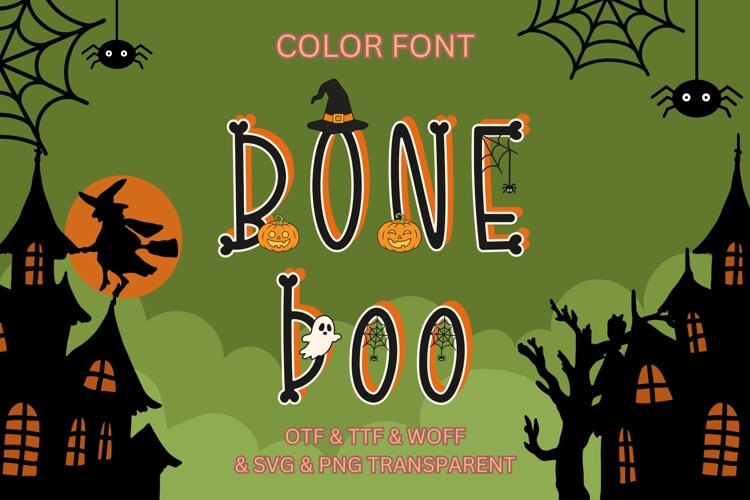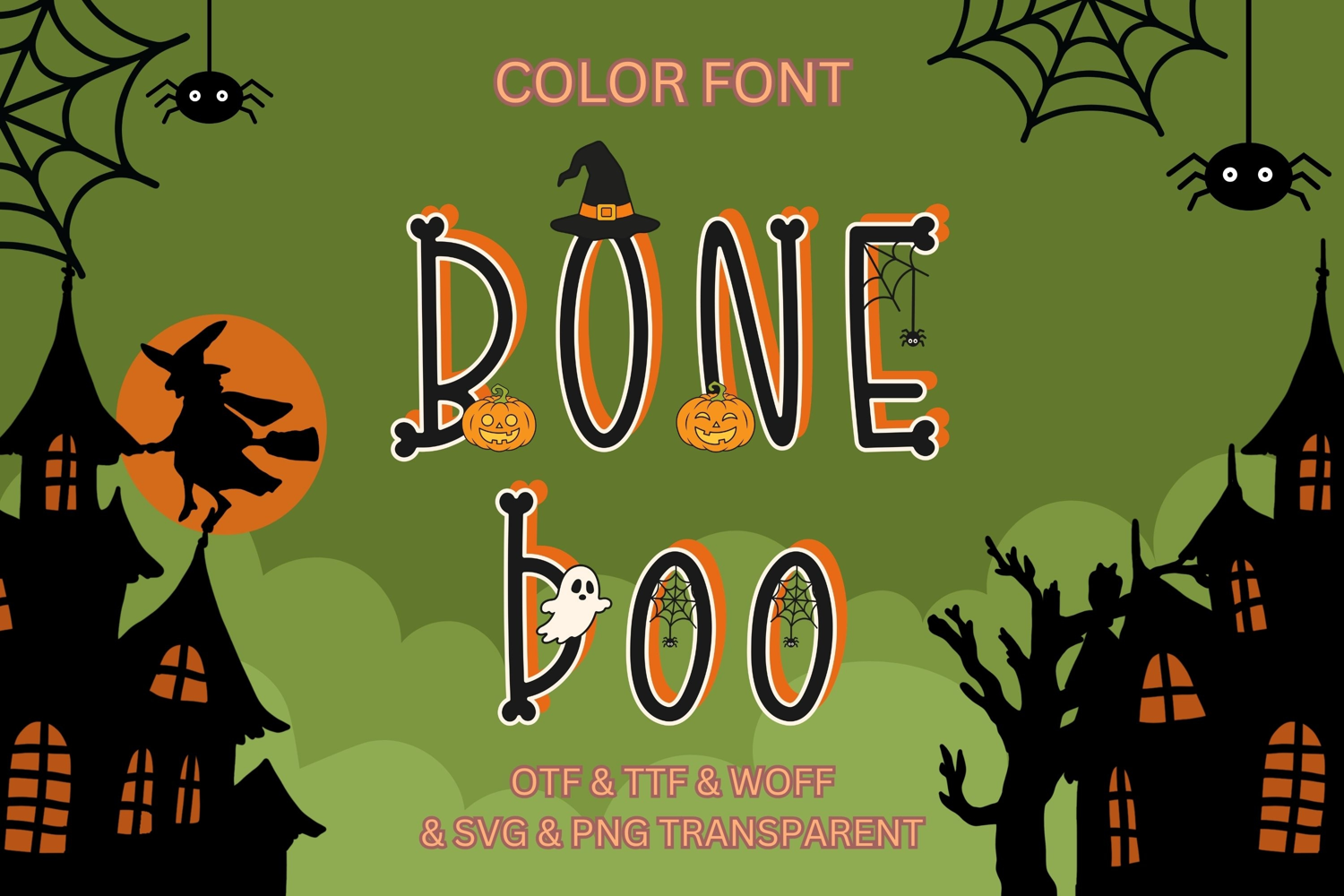
Bone Boo Color Font is a playful and spooky display font designed with bone-inspired letterforms and cute Halloween decorations. Each character is enhanced with festive elements such as ghosts, pumpkins, bats, skulls, witch hats, candles, spider webs, spiders, and witch brooms.
The black, orange, and cream color combination gives the font a fun Halloween look that works beautifully for both spooky and kid-friendly designs. It includes uppercase and lowercase letters, numerals, and punctuation, making it perfect for Halloween invitations, party decorations, posters, stickers, T-shirts, sublimation designs, classroom projects, social media graphics, and seasonal crafts.